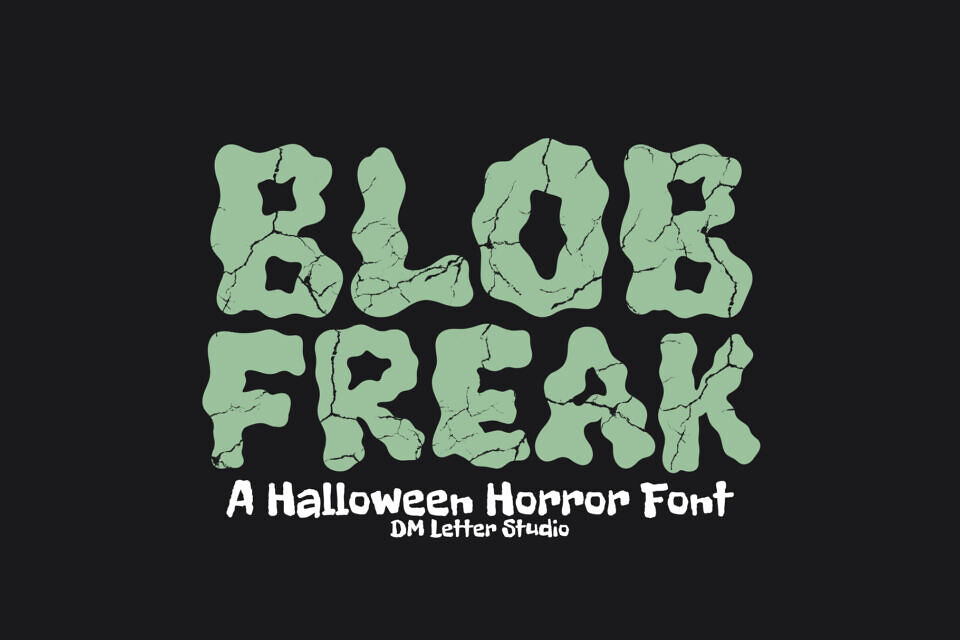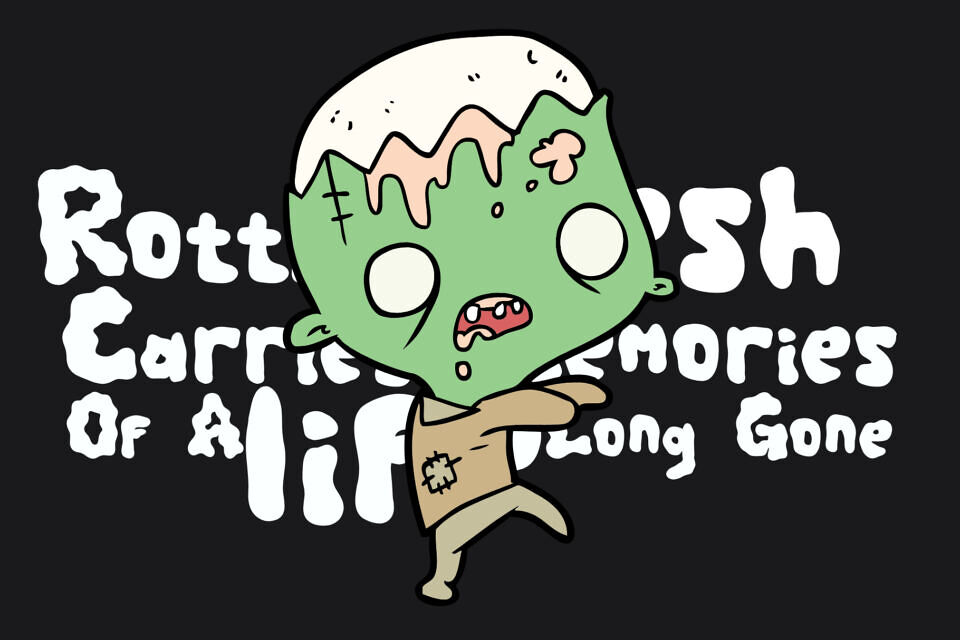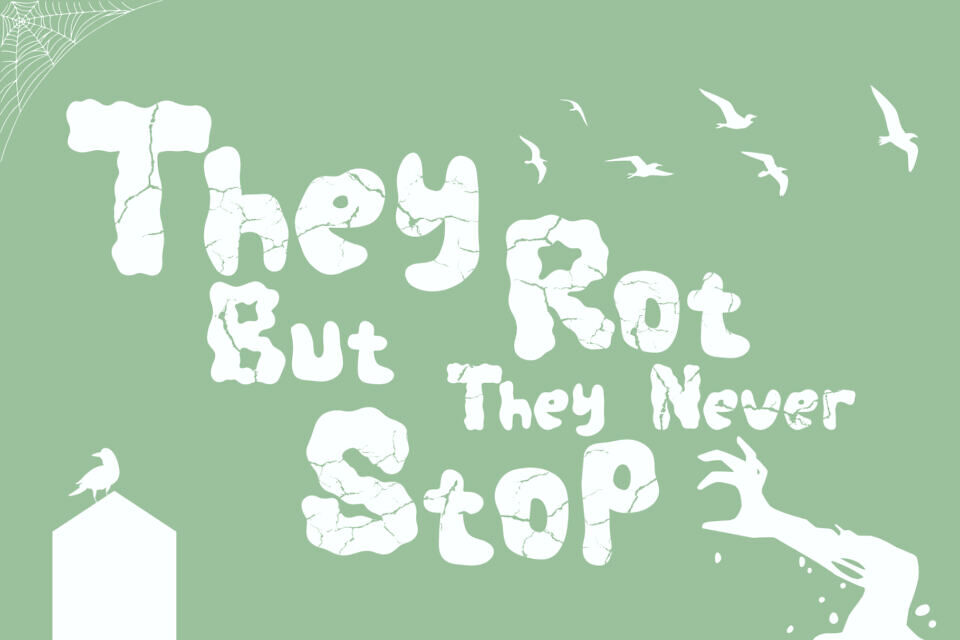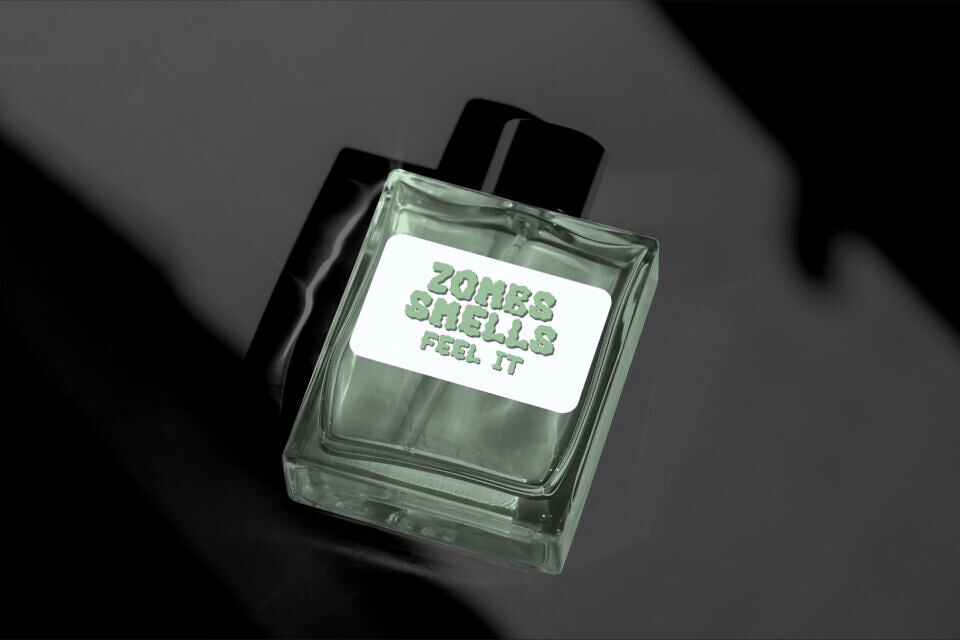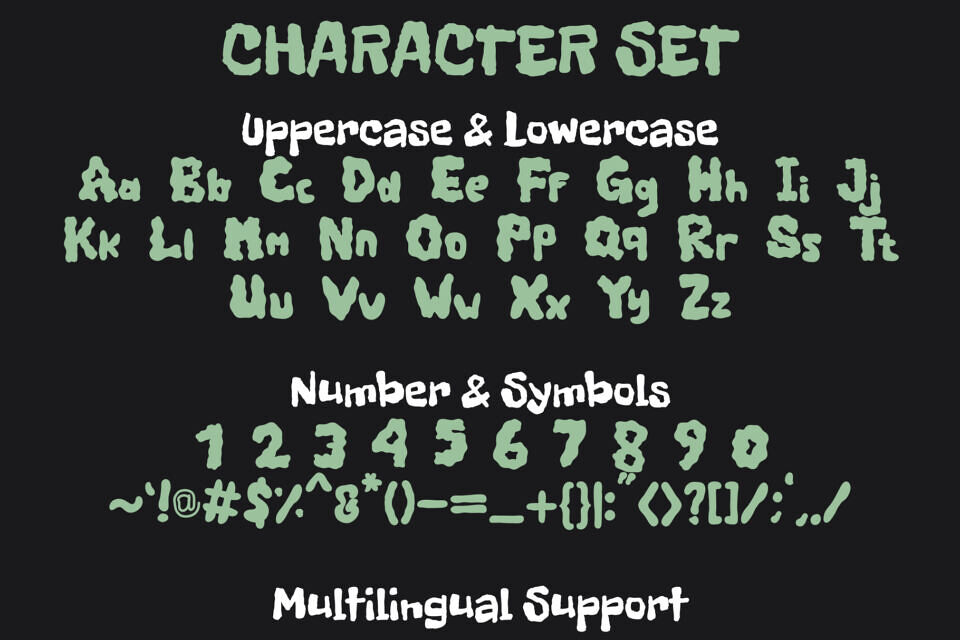
Blob Freak crawls out of the grave as a quirky, undead-inspired display font perfect for Halloween-themed designs. With its gooey, mutated letterforms and eerie, uneven flow, this typeface oozes with zombie charm and spooky energy. Whether you’re crafting haunted party invites, horror merch, or creepy YouTube thumbnails, Blob Freak brings the fright with style.
Features:
- Zombie-Inspired Shapes: Melty, distorted blobs echo the look of decaying flesh and mutant ooze.
- Uneven & Haunted Feel: Each letter creeps across the page with an unsettling, organic twist.
- Perfect for Halloween Projects: Posters, haunted house flyers, horror stickers, or costume party branding.
- All-Caps Scream: No lowercase—just loud, grotesque uppercase lettering with max impact.